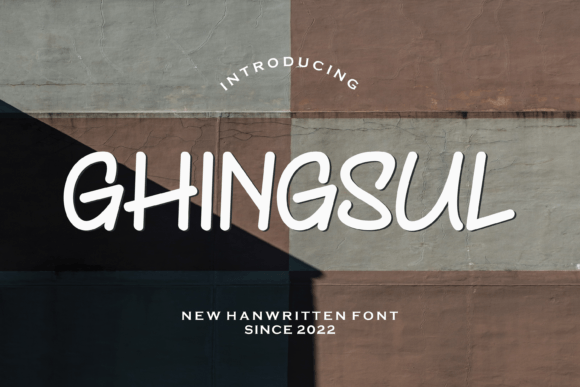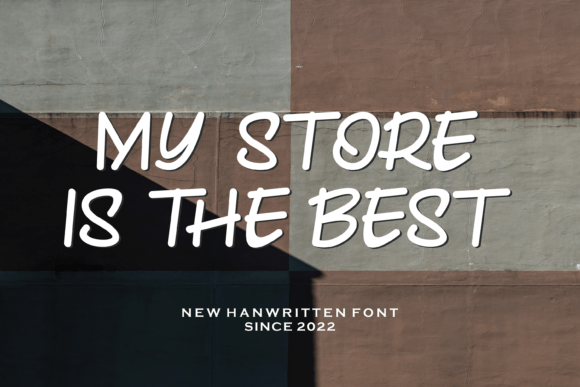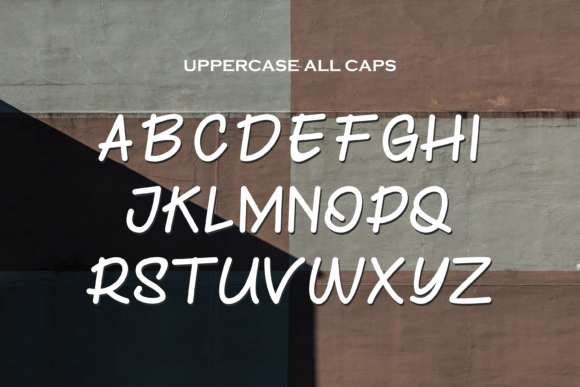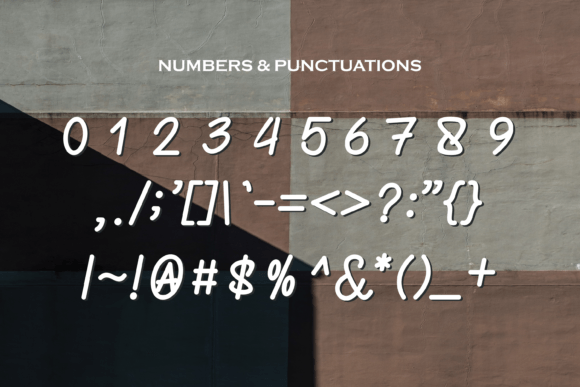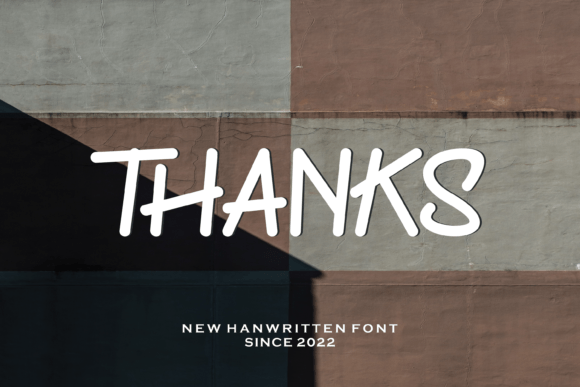
Ghingsul Font
About Ghingsul Font
**”Ghingsul”** is a contemporary and stylish handwritten font that adds a touch of coolness and modernity to your design projects. This font is designed to captivate your creative spirit and elevate your projects to new heights of sophistication.
**”Ghingsul”** font embodies a sleek and modern aesthetic that instantly catches the eye. Its cool and stylish letterforms exude confidence and creativity, making it a perfect choice for a wide variety of creative endeavors.
Whether you’re working on branding, posters, logos, packaging, or digital content, **”Ghingsul”** adds a distinctive flair to your projects. It helps you make a strong visual impact while retaining an element of contemporary style and coolness.
In the world of design, it’s essential to create designs that stand out, and **”Ghingsul”** excels in this regard. It confidently enhances your projects, ensuring that they resonate with your target audience and leave a lasting impression.
In summary, **”Ghingsul”** is more than just a font; it’s a design asset that effortlessly blends modernity and coolness. It’s the perfect choice for projects where you want to make a bold statement while maintaining a sleek and contemporary look. Embrace **”Ghingsul”** and watch your creative endeavors come to life with a touch of confident, modern sophistication.